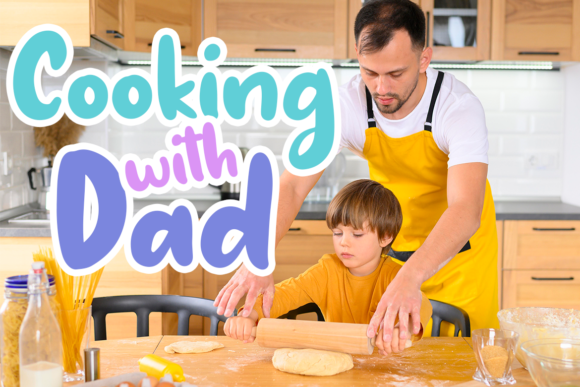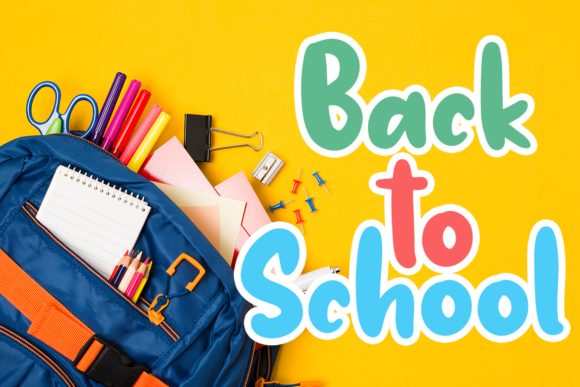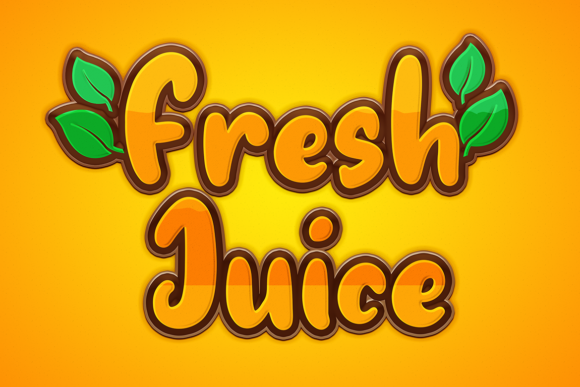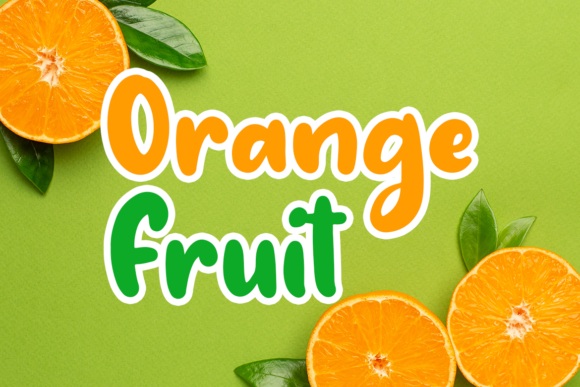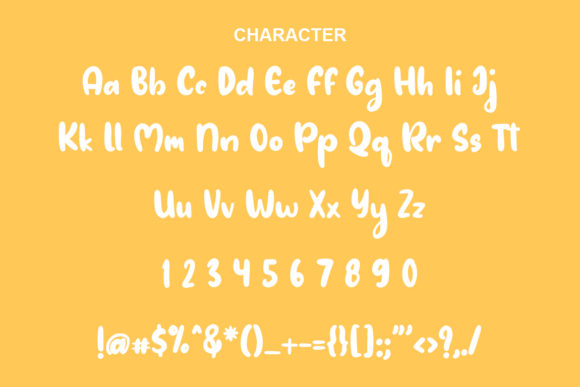
Introduction to Kiba-Kidu Font
As a designer, there’s nothing quite like the thrill of bringing a creative project to life. Whether it’s a branding campaign, a children’s book cover, or a social media post, the right font can make all the difference. And that’s where the Kiba-Kidu Font comes in – a delightful display font that’s sure to captivate young audiences and add a touch of whimsy to your designs.
Imagine having access to a high-quality, free download font that’s perfect for a wide range of design projects. From product packaging and labels to stationery and social media posts, the Kiba-Kidu Font is an invaluable resource for designers looking to create eye-catching, engaging content. With its transparent background and cute, playful aesthetic, this font is a must-have for anyone working on a children’s themed project.
Key Features of Kiba-Kidu Font
- High-quality design resource for creative projects, offering a unique and modern aesthetic.
- Transparent background allows for seamless integration with any design element.
- Available in a single weight, making it ideal for use in logos, typography, and other design applications.
- Designed to be highly legible and readable in both digital and print formats.
- Perfect for designers and artists looking for a distinctive and eye-catching font for their next creative project.
Honest Review: Kiba-Kidu Font
I recently came across the Kiba-Kidu Font and was excited to give it a try. As a designer, I’m always on the lookout for high-quality design resources that can elevate my creative projects. After using the Kiba-Kidu Font, I’m happy to share my honest review.
- ✨ High-quality font with a unique and playful style
- ✨ Transparent background makes it easy to use in various design applications
- ⚠️ Limited character set, which may not be suitable for longer texts or professional documents
- ⚠️ Not as versatile as some other fonts, which may limit its use in certain design projects
Overall, I’m impressed with the Kiba-Kidu Font. While it may have some limitations, its unique style and high-quality design make it a great addition to any designer’s toolkit. If you’re looking for a fun and playful font for your next creative project, the Kiba-Kidu Font is definitely worth checking out.
The Kiba-Kidu Font is a high-quality design resource ideal for creative projects. With a transparent background, it’s perfect for adding a unique touch to your designs.
To get the most out of the Kiba-Kidu Font, use it in combination with other design elements to create a unique and eye-catching design. Experiment with different font sizes and colors to find the perfect balance for your project.
The Kiba-Kidu Font is ideal for creative projects such as logos, brochures, and business cards. It’s also perfect for adding a unique touch to presentations and documents.